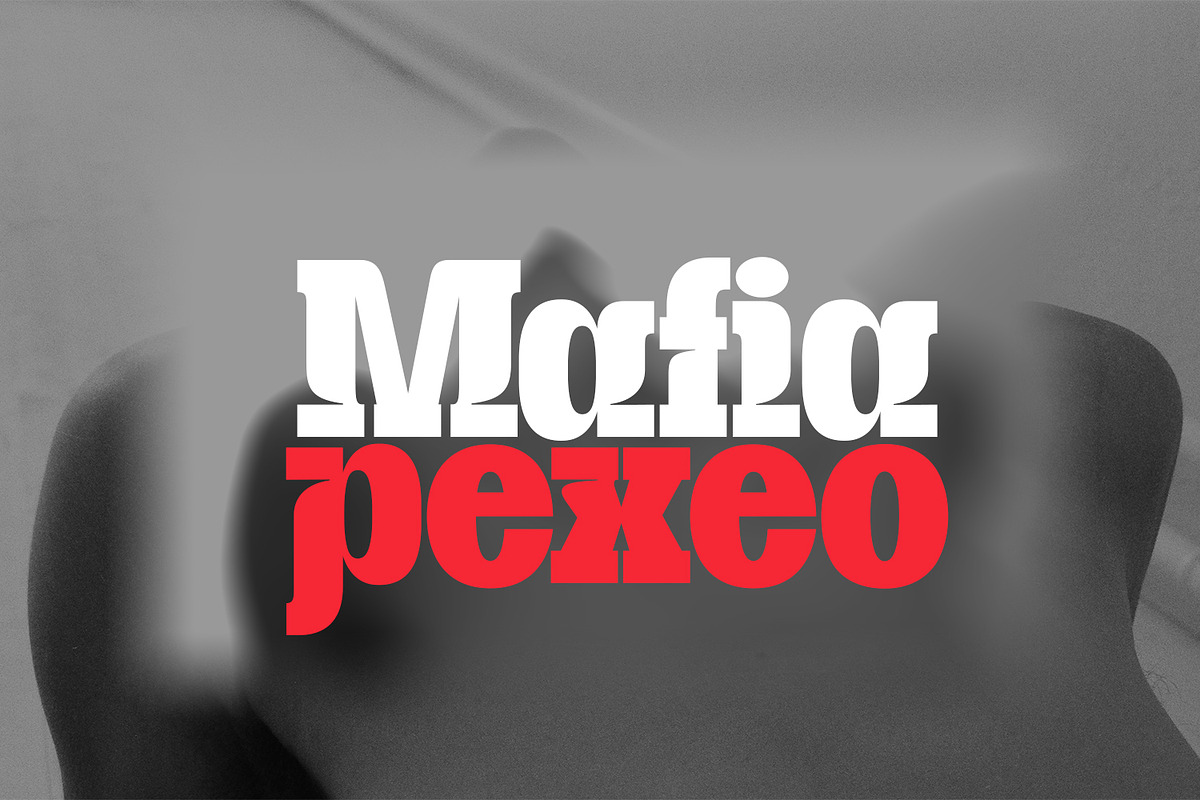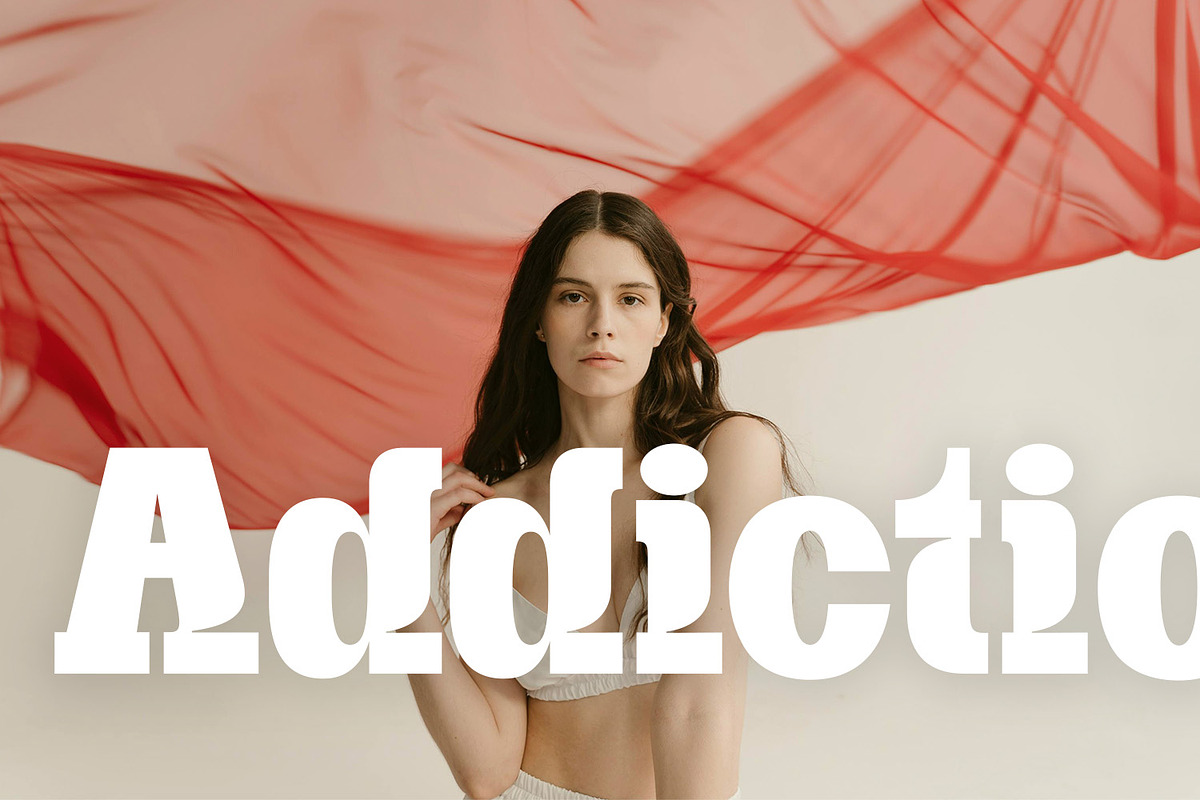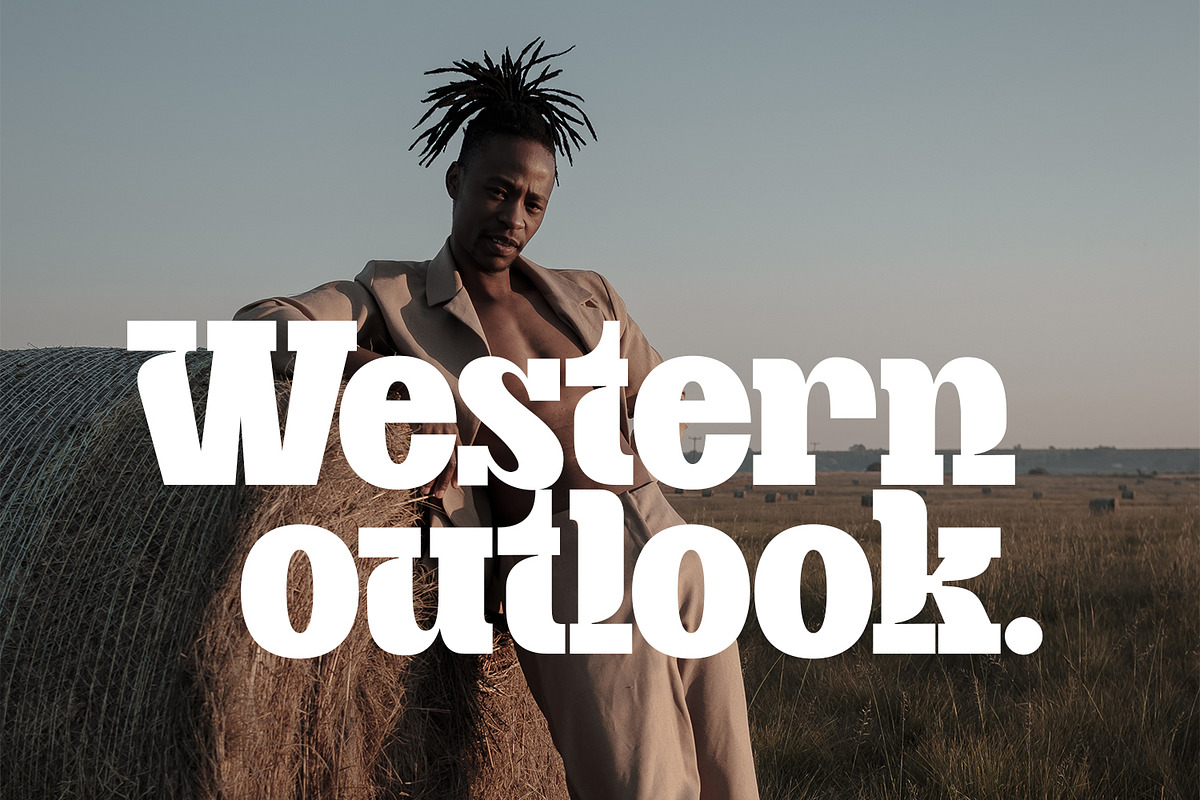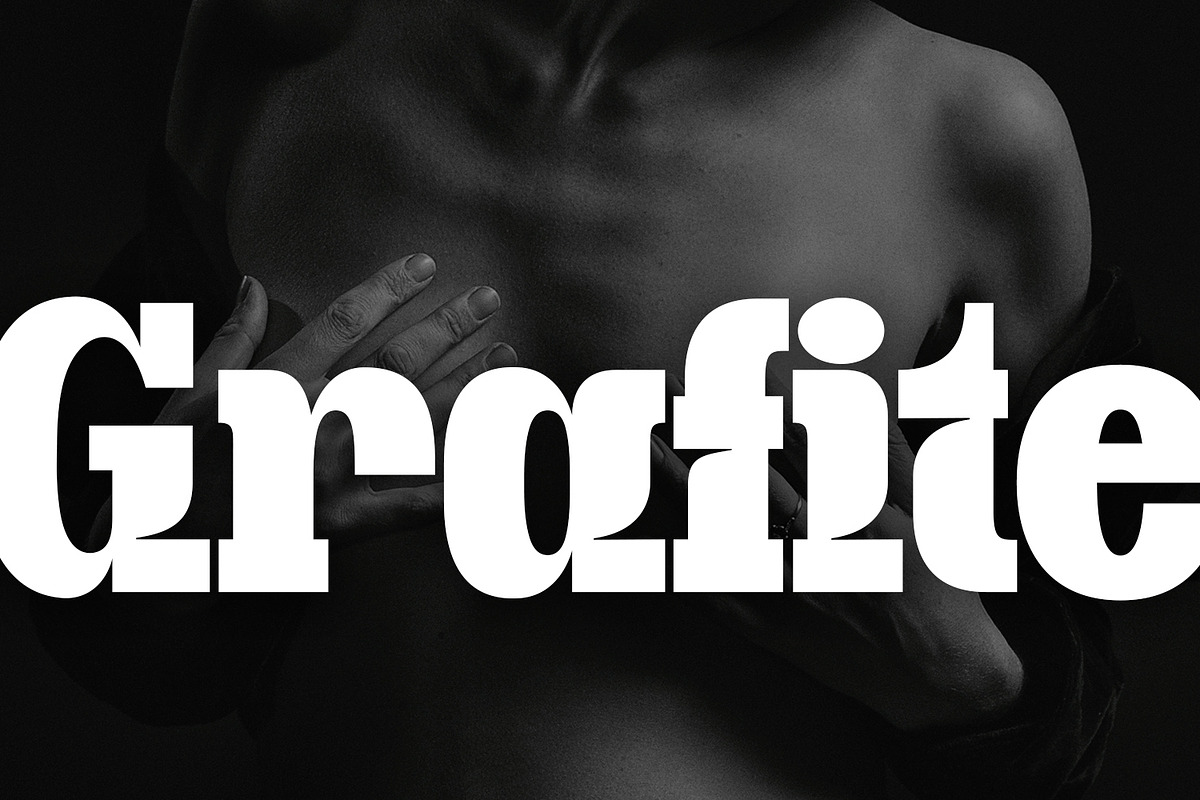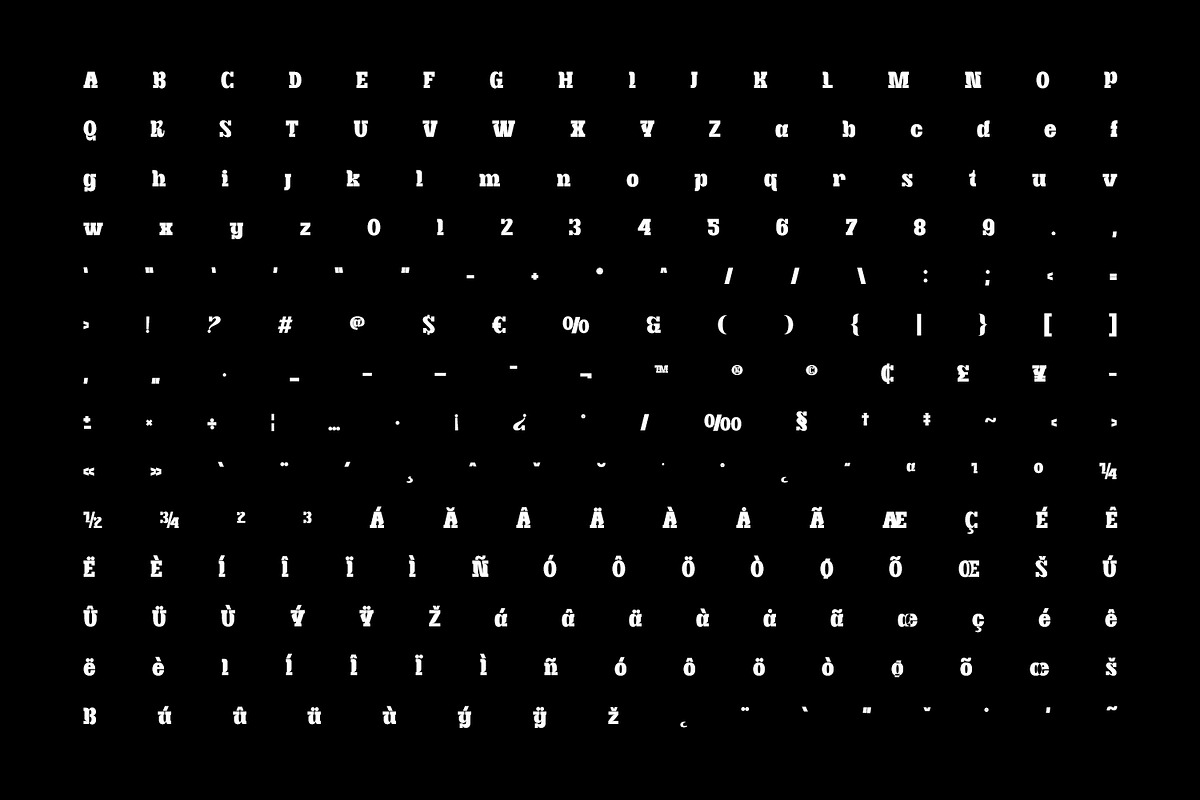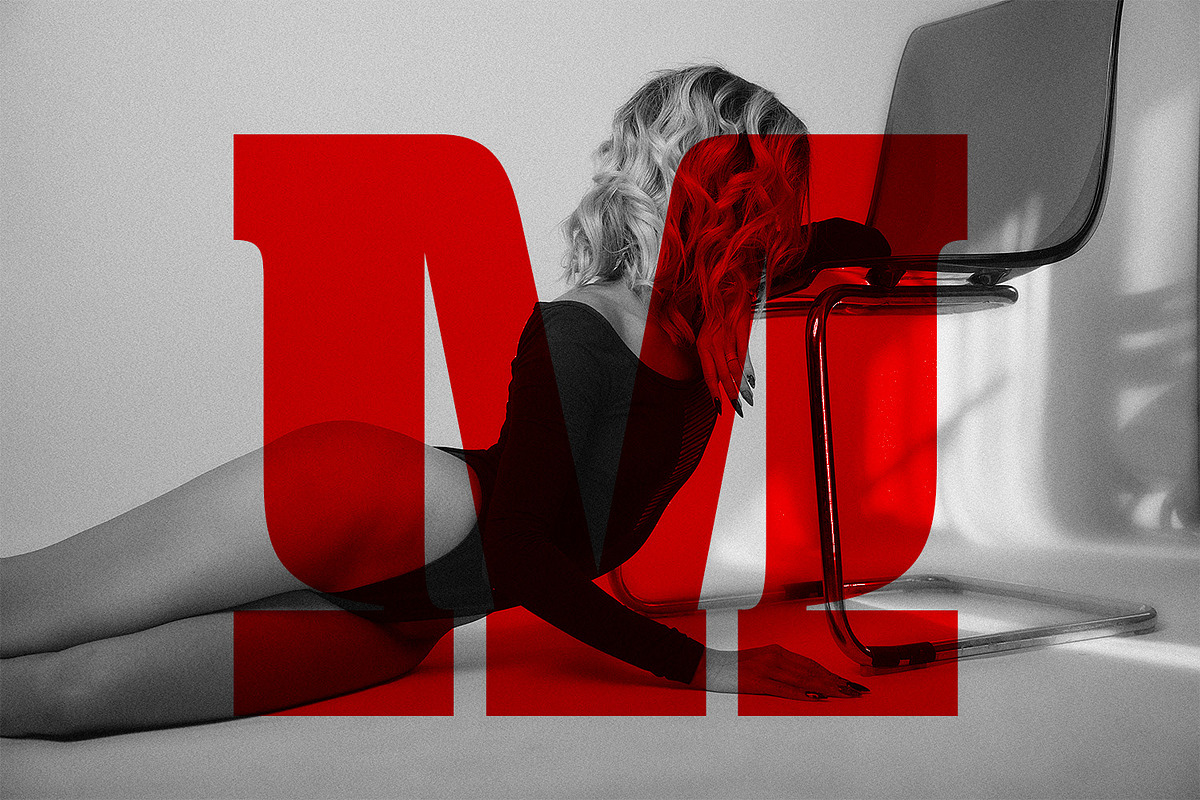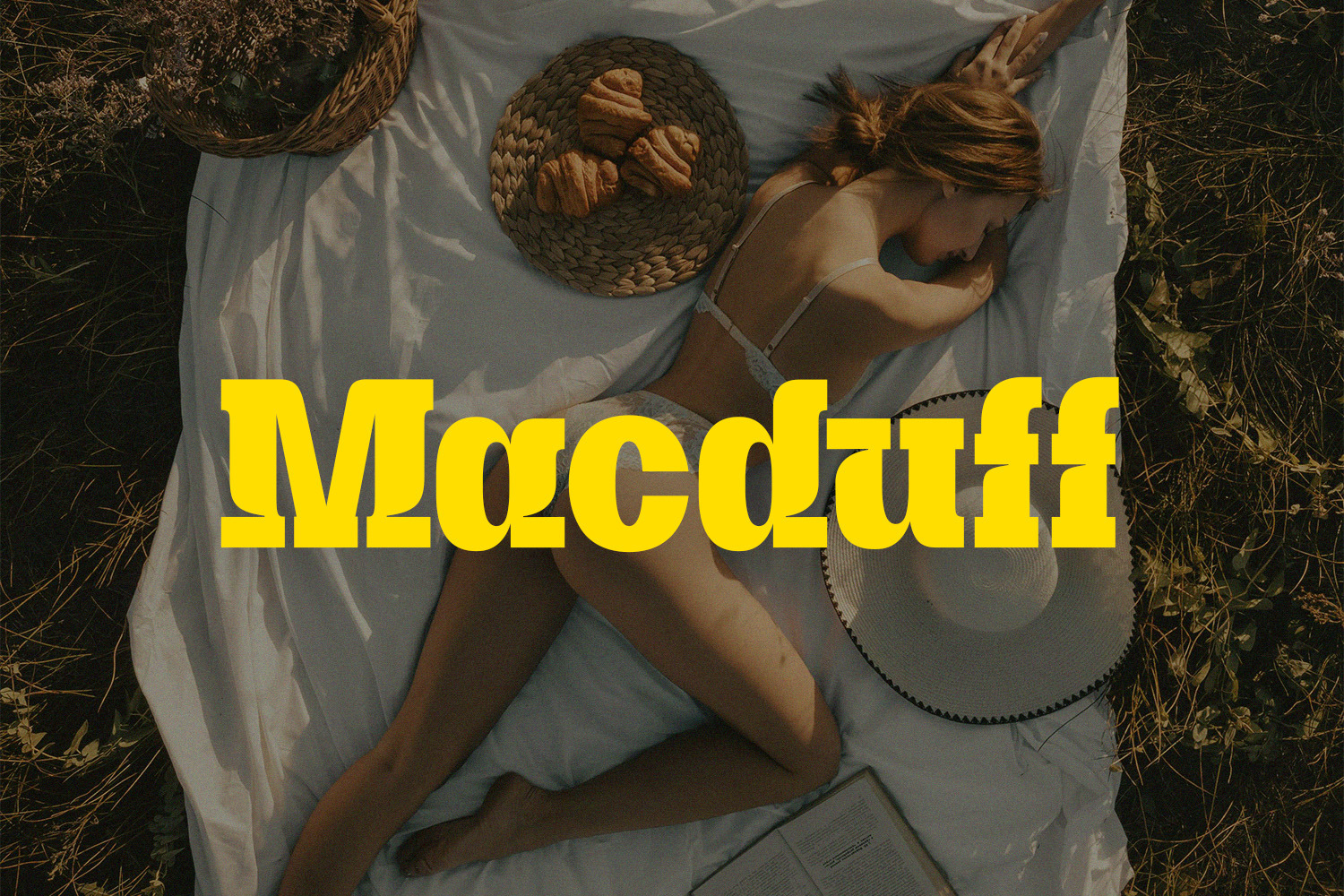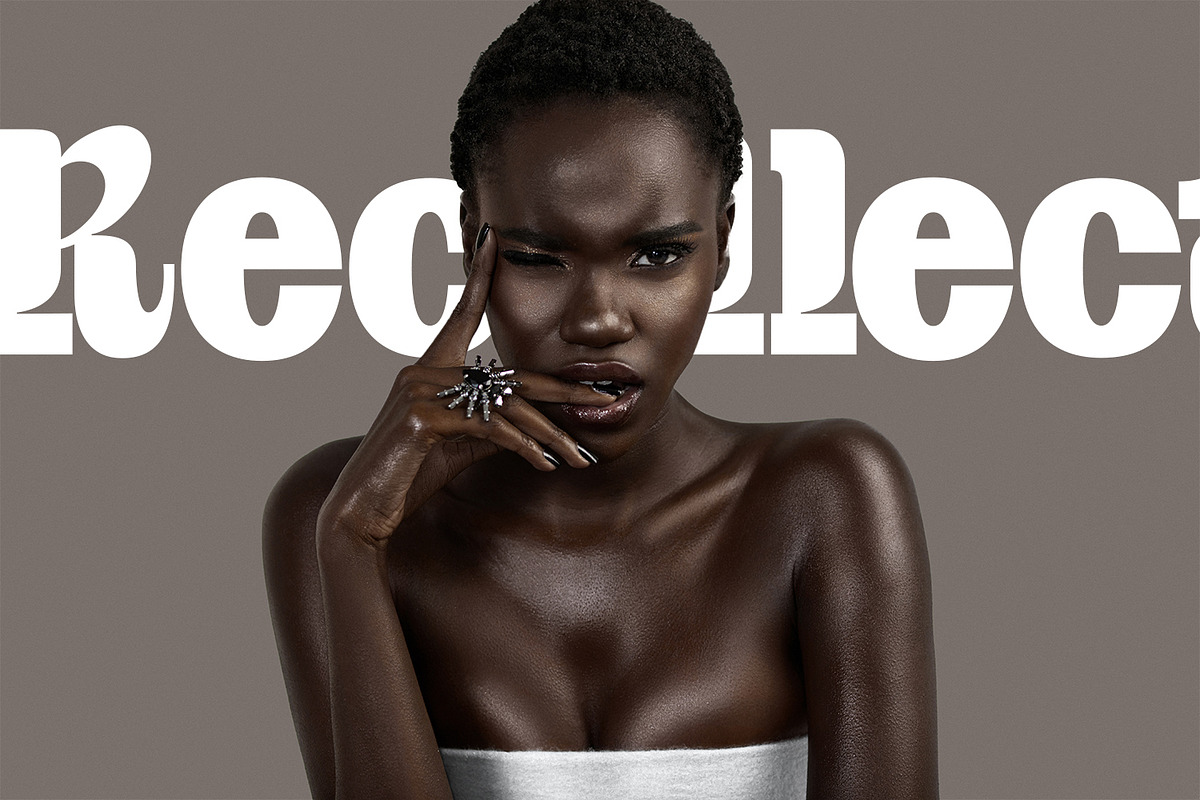
Macduff Decorative Typeface
Macduff Display is a meticulously crafted font, designed to make a bold statement in your creative projects. Ideal for posters, magazine covers, headlines, Logo, Branding and more, this font brings a modern and dynamic touch to any design.
- Neat and Precise: Each character is carefully designed to ensure clarity and visual appeal.
- Versatile Usage: Perfect for creating eye-catching posters, striking magazine covers, and attention-grabbing headlines.